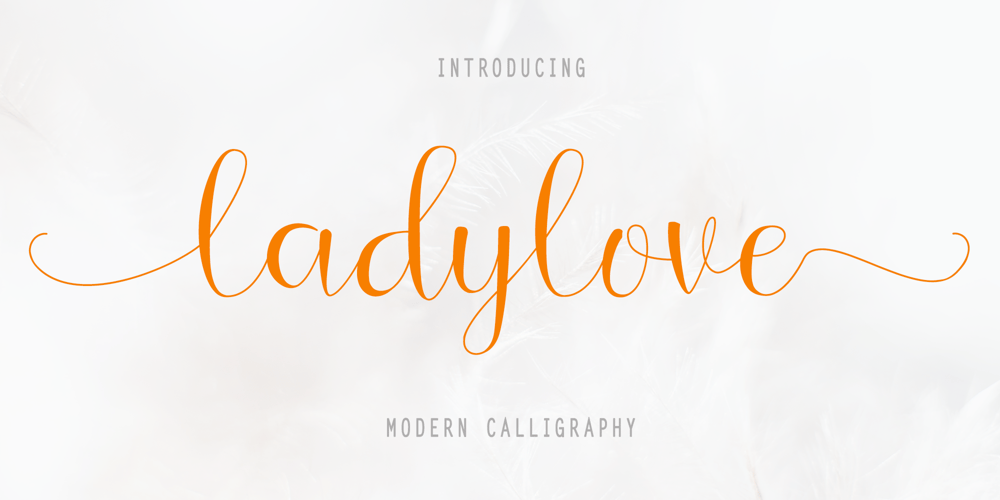
Ladylove Font Family was designed by Aditiyo Dwi Putranto and published by Creaditive Design. Ladylove contains 1 styles and family package options. Ladylove is a beautiful handwritten font. It has an elegant style and it will add a sophisticated look to your designs. It will perfect for wedding invitations, bussiness card, logos, and quotes. Featuring a light weight it looks fantastically elegant. With lowercase Swashes can make your design looks beautiful, also Ligatures make your design more smooth and looks natural.